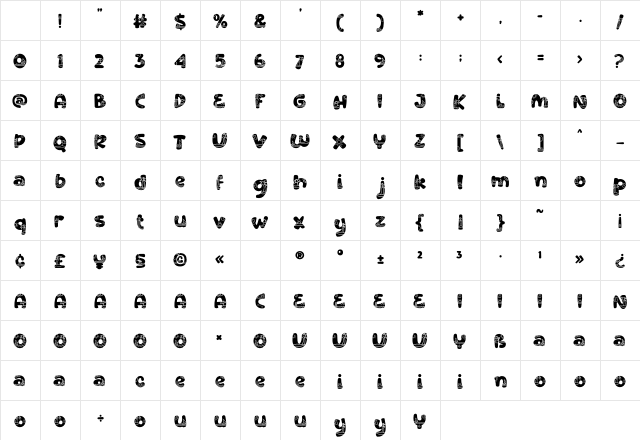
Complete Sandy Toes Decorative glyph index. Displaying only characters natively supported by Sandy Toes Decorative font.
Sandy Toes is built around its visual character rather than neutral utility - its distinctive forms are designed to make an impression at display sizes.
Font Pairing: Pair with a clean neutral sans-serif for body copy to let Sandy Toes's character lead without overwhelming the composition.
Pro Tip: Use Sandy Toes exclusively at display sizes - it was designed to be seen, not read at length. Let a neutral companion handle body copy.